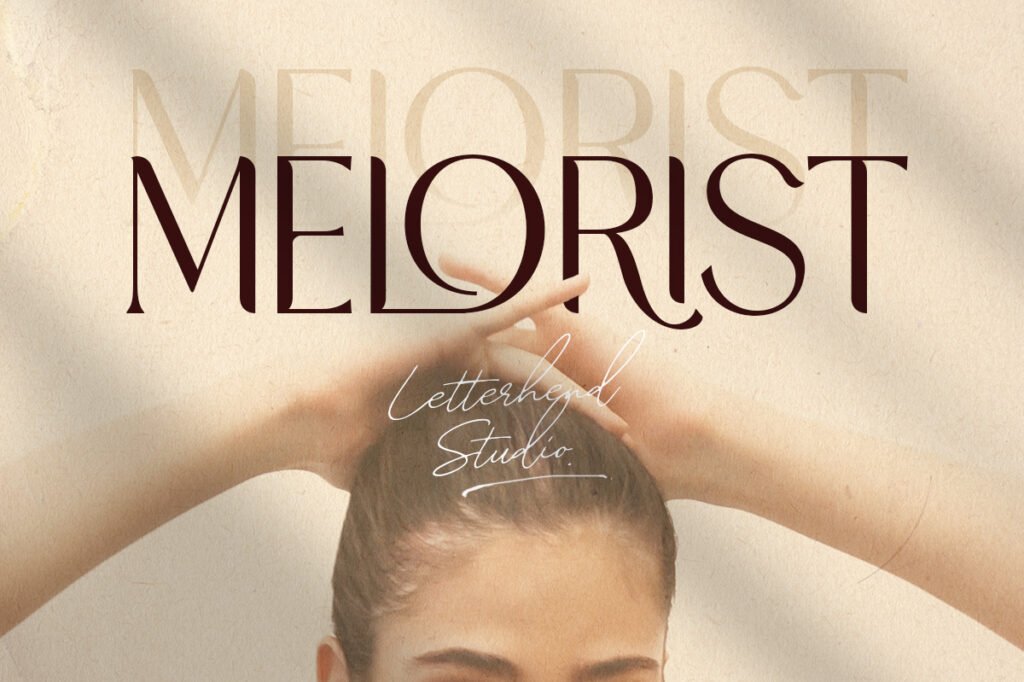
Melorist Font
Melorist is a sweet and friendly display font. Its natural and unique style makes it incredibly fitting for a large pool of designs. The only limit is your imagination!
Melorist Modern Serif Font